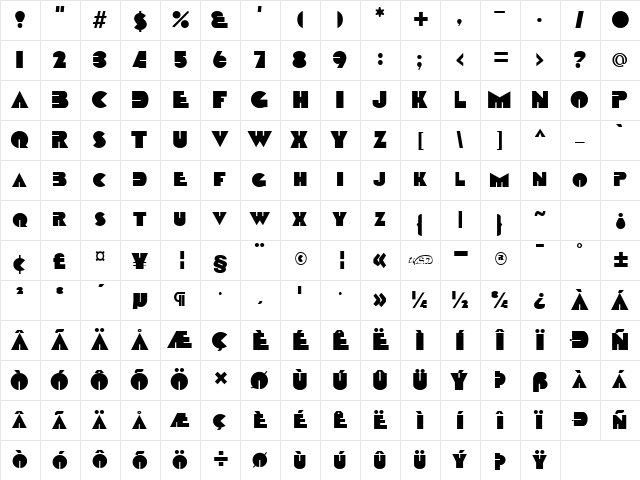
Baby Teeth Regular
Design Context for Baby Teeth
Baby Teeth is a composed and adaptable typeface that performs quietly and consistently across a wide range of design contexts.